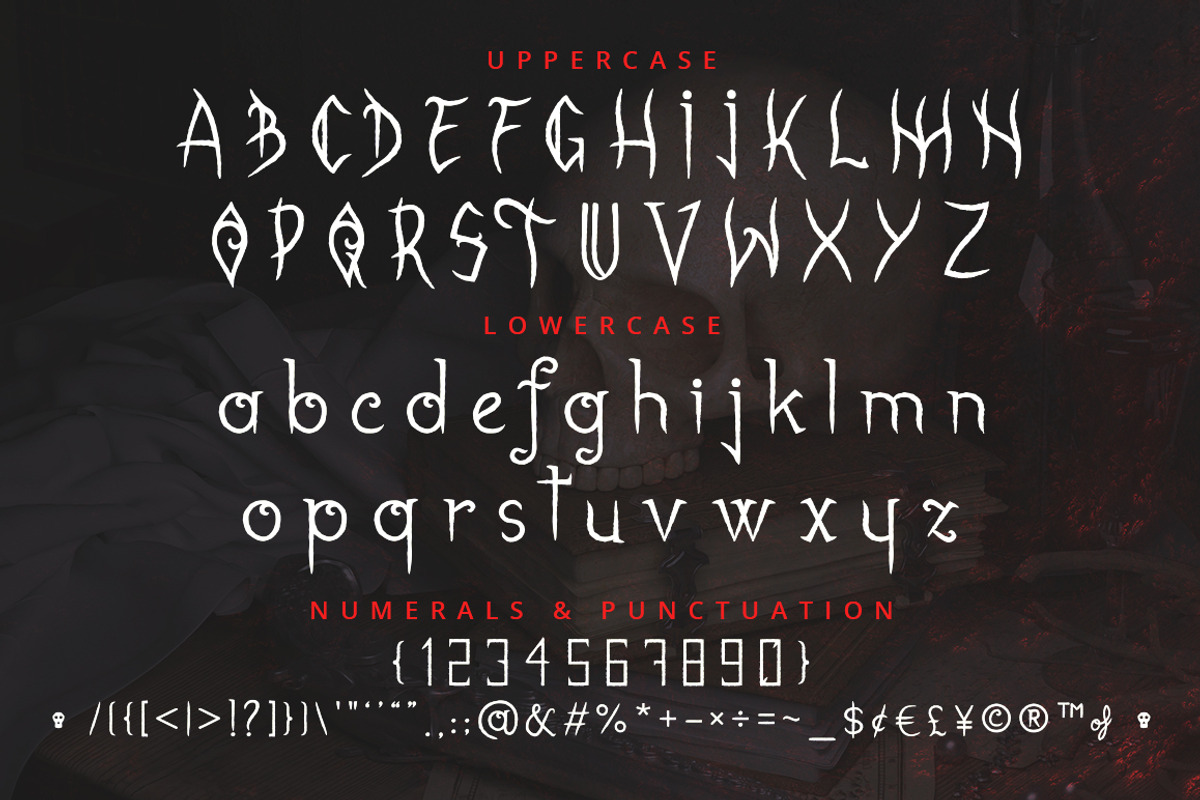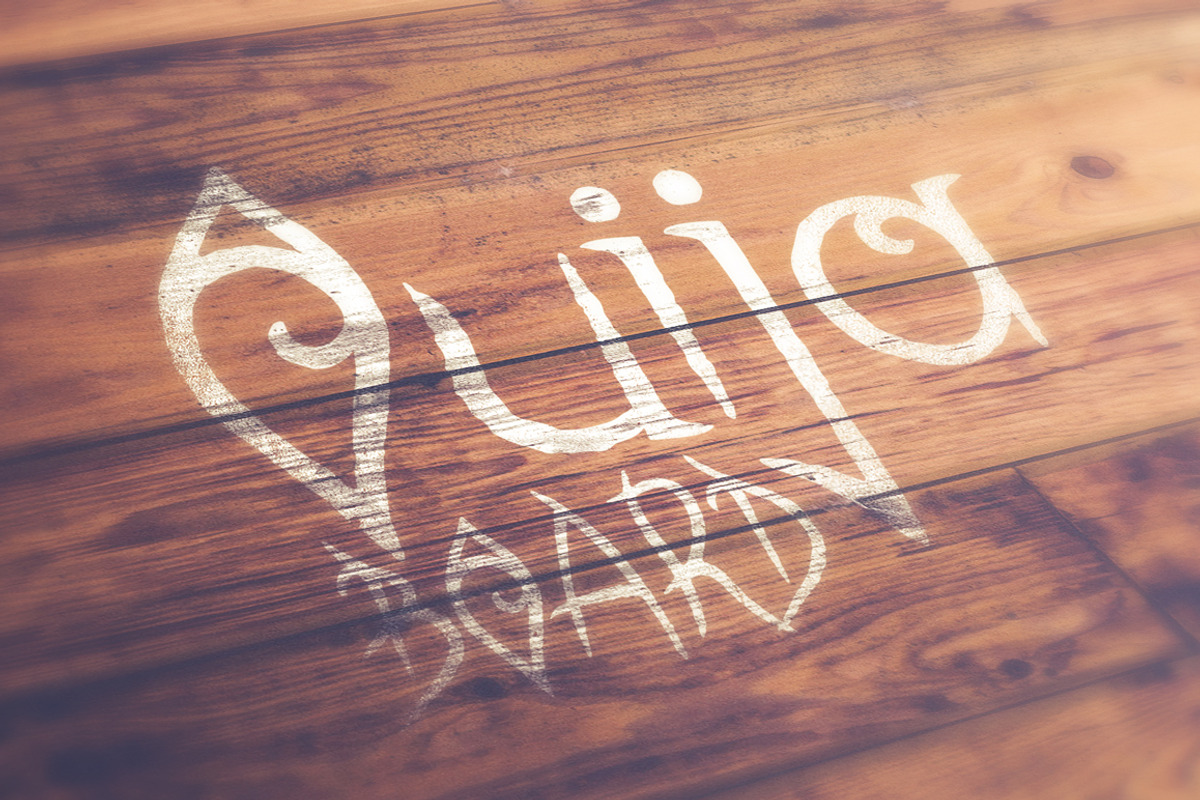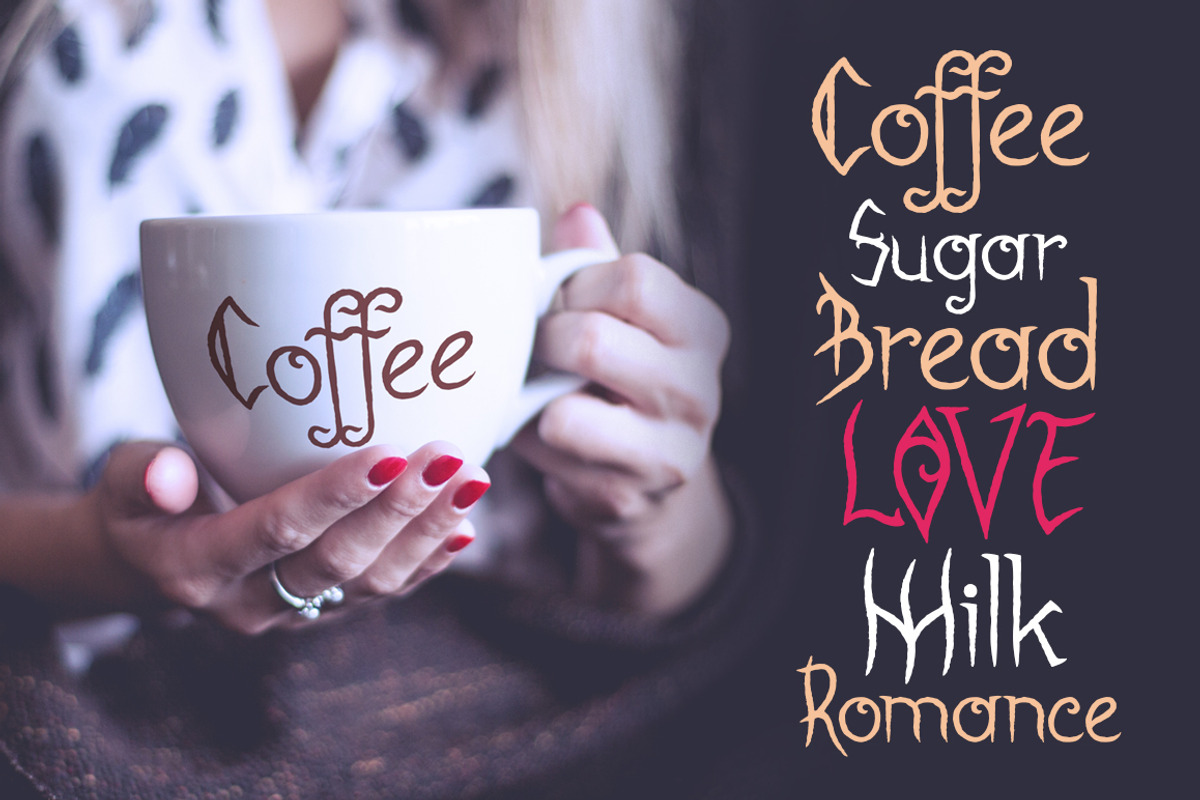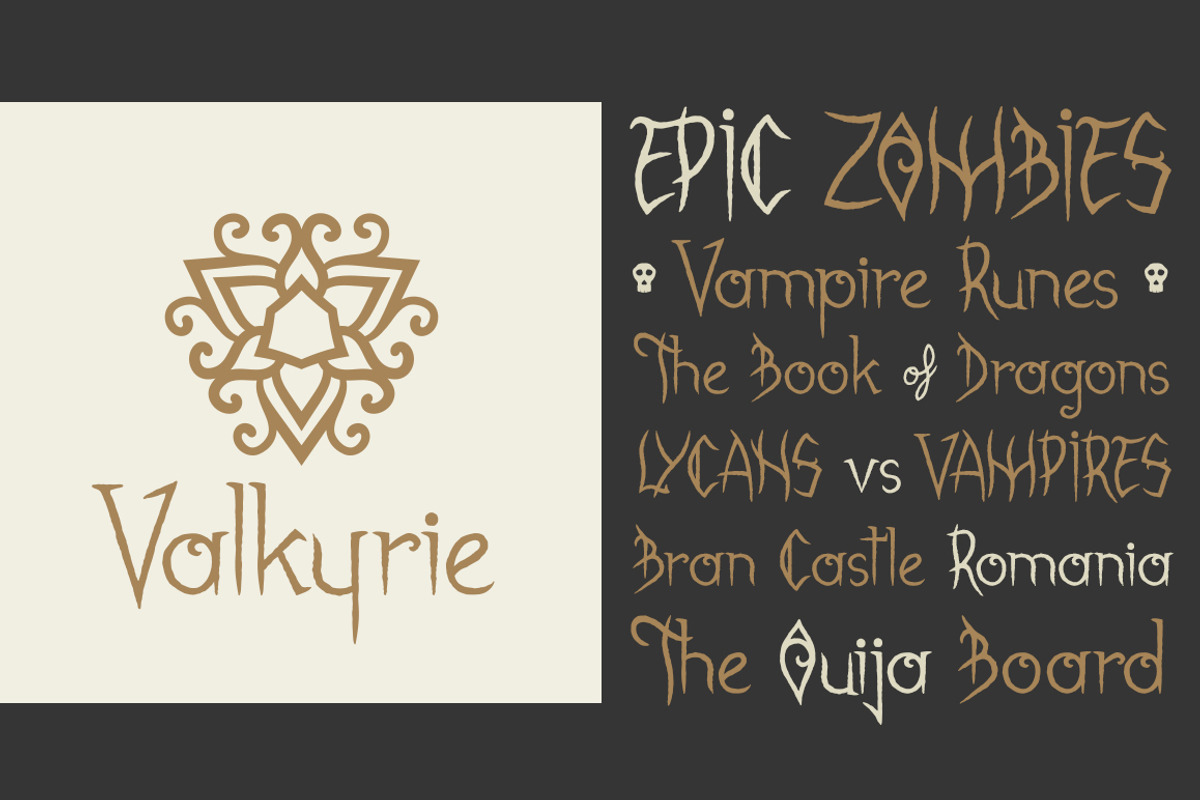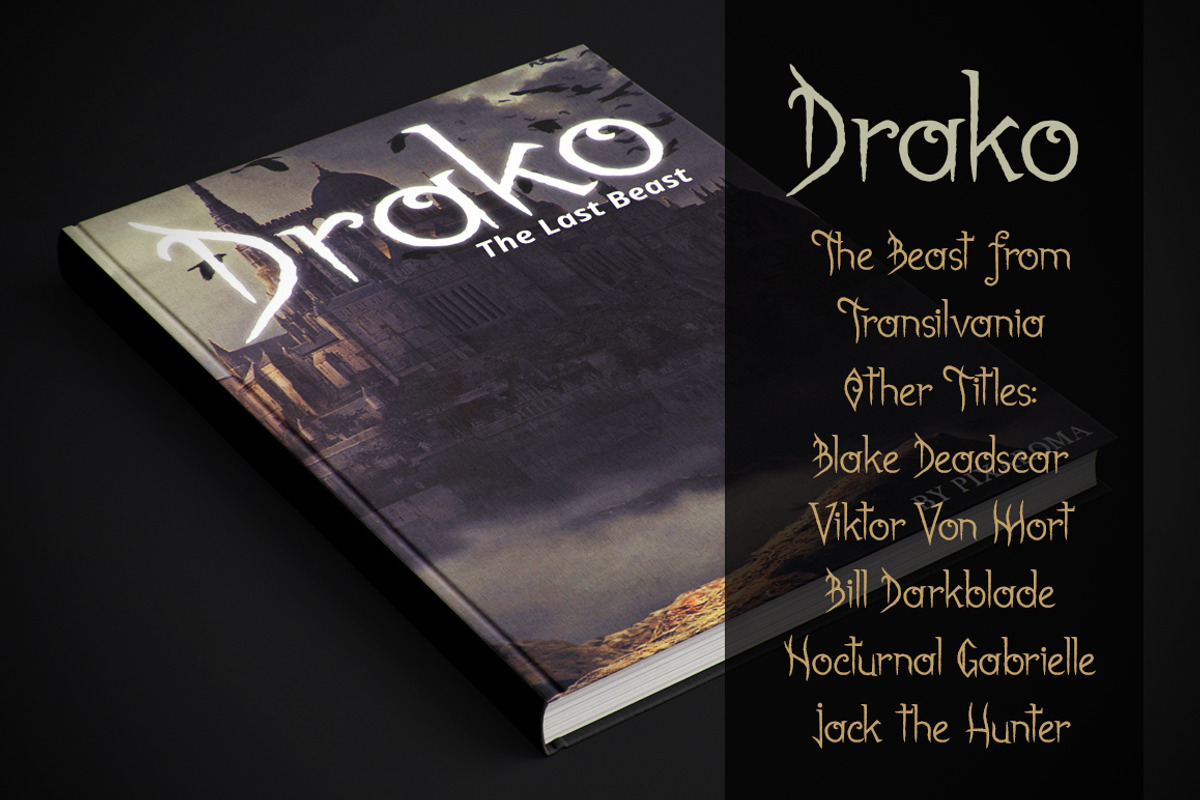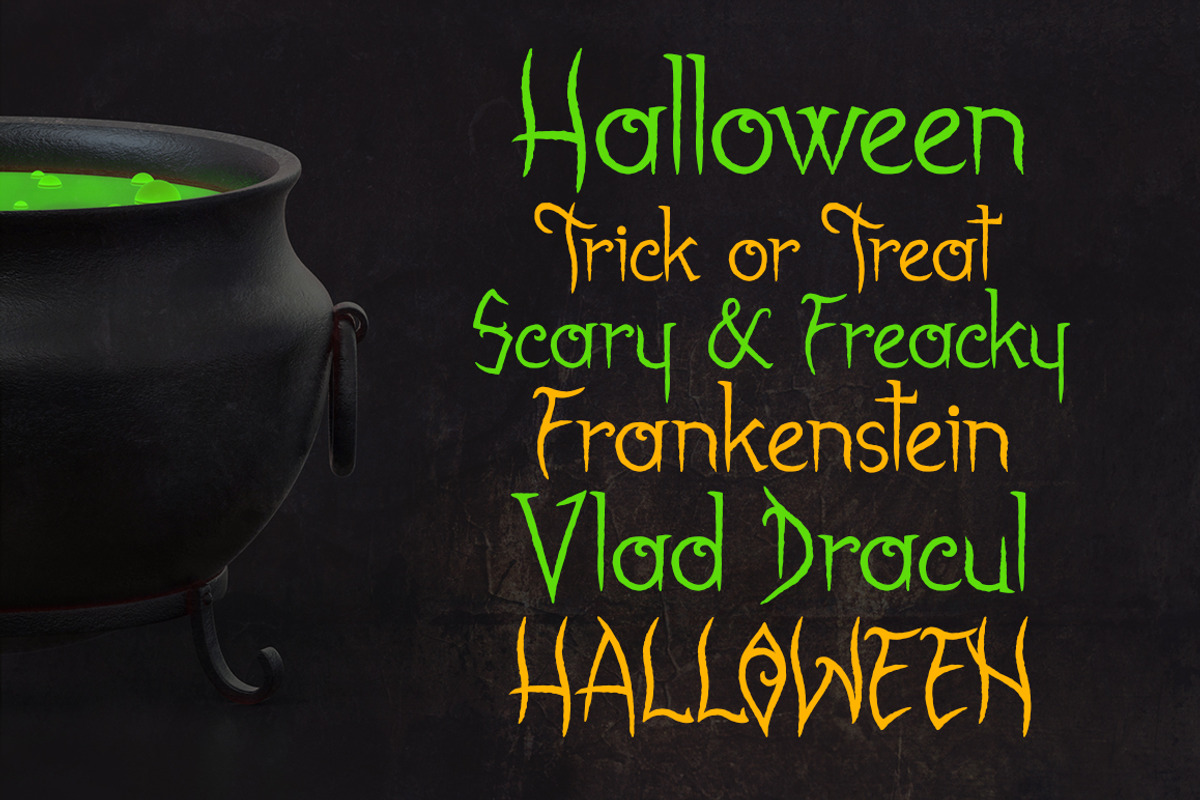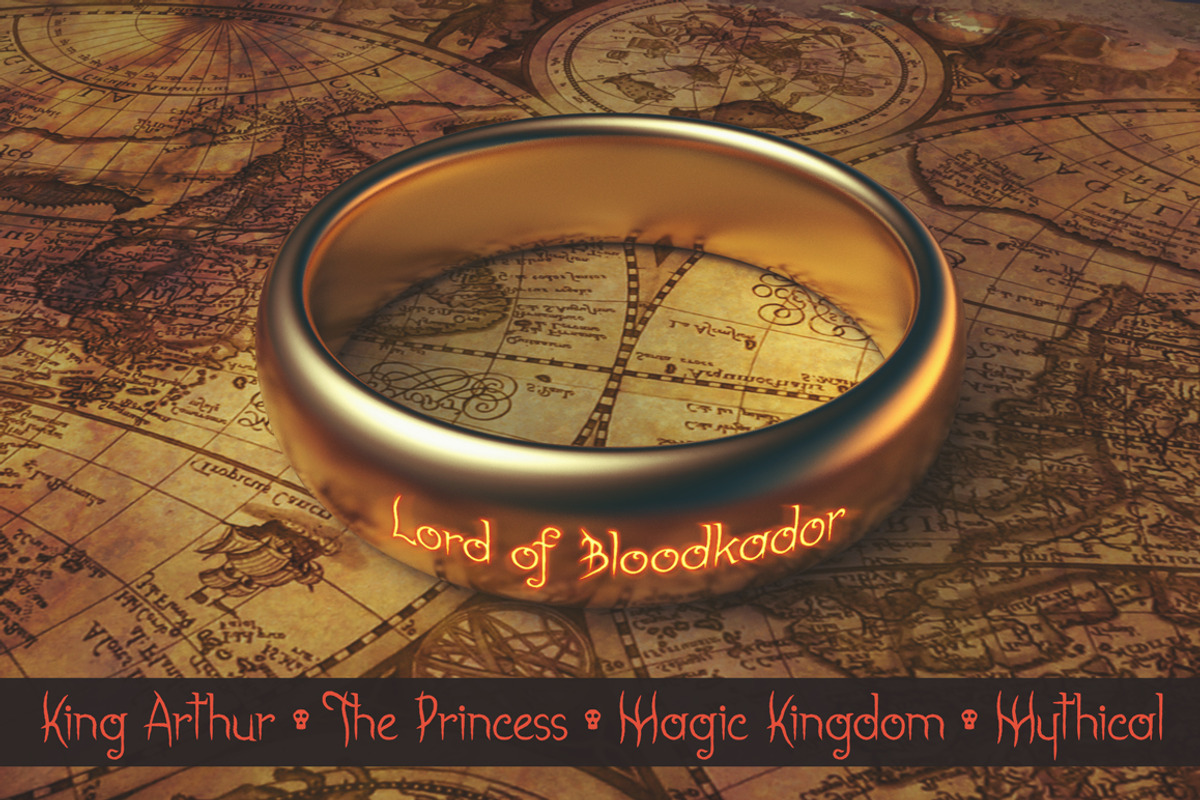
Gabrielle Bloodkador Font
Gabrielle Bloodkador- a vampiric display font. Works for different project themes: Vampires, Halloween, Ancient, Fantasy, Dragon, Mythical, Ninja, Dracula, Monsters, etc. It can be used for different purposes: lettering, logo design, labels, t-shirts, product packaging, invitations, advertising, posters, banners, game logos, book and movie titles.
use caret character ^ (usualy Shift+6) to get small "of"
use Bullet • Symbol to get a small skull
Gabrielle Bloodkador Font by pixaroma fits naturally into Branding, posters, packaging, typography.